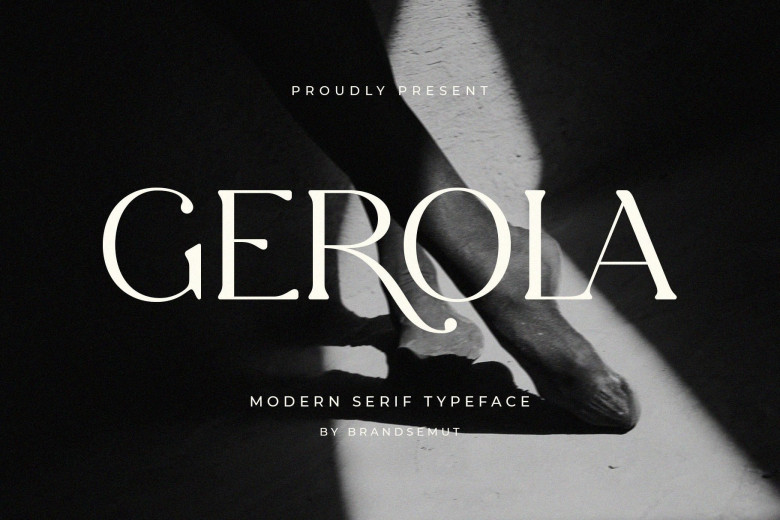
Gerola Font
Gerola offers an elegant yet modern serif typeface perfect for creating stylish wedding invitations, stationery art projects and engaging social media posts.
Gerola Serif Font